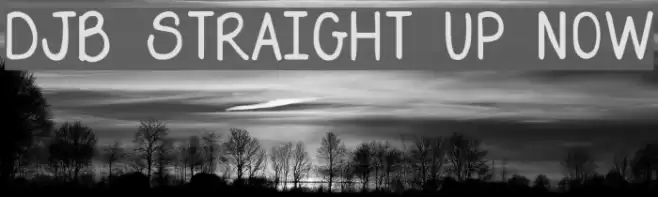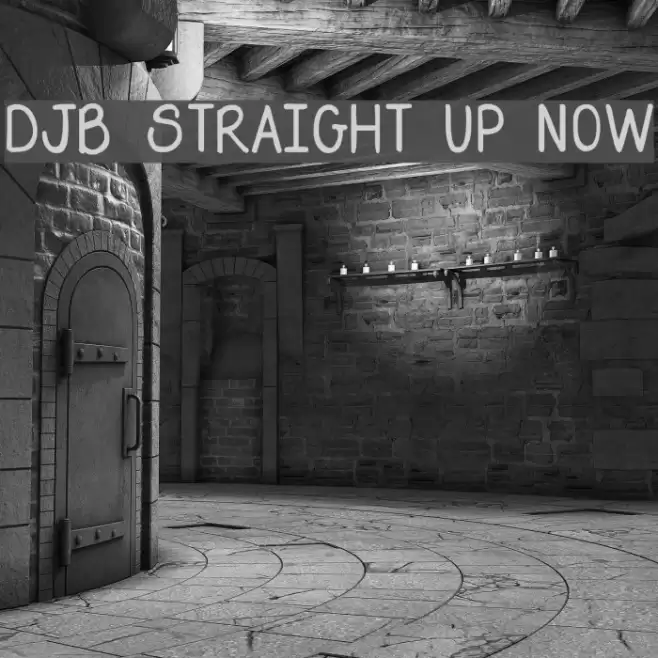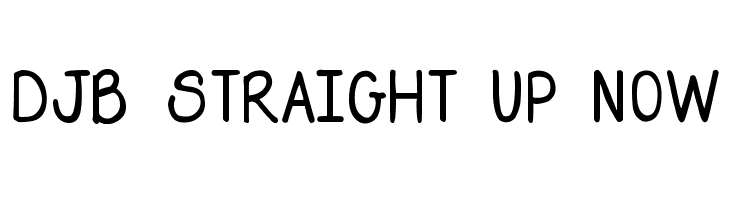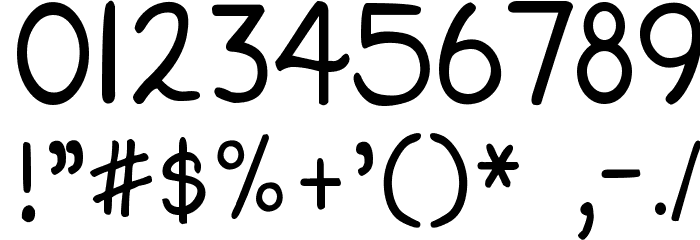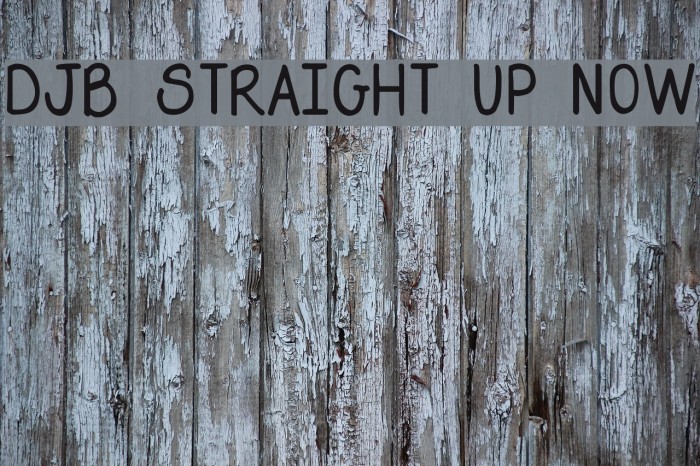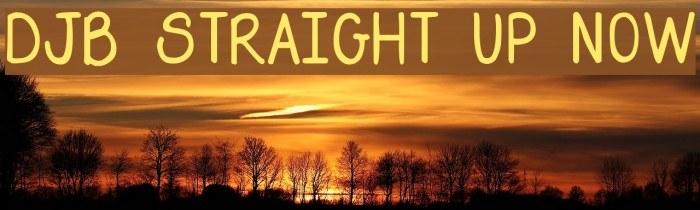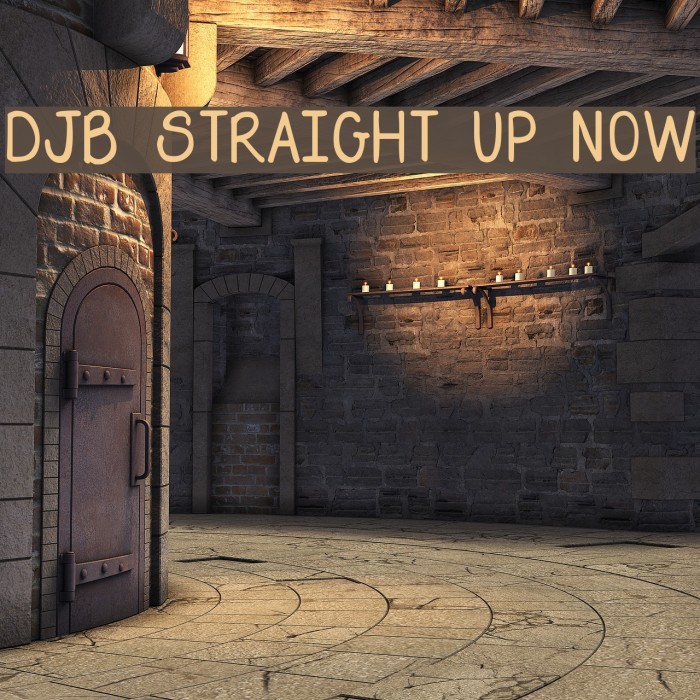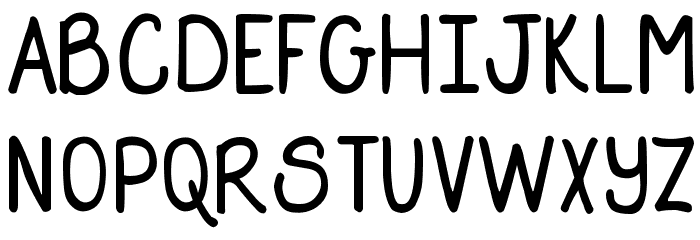
DJB Straight Up Now Font
DJB Straight Up Now Description
This font features a playful and casual handwritten style, characterized by its rounded and smooth letterforms. The uppercase and lowercase letters maintain a consistent flow, with slightly varying stroke widths that add a touch of whimsy. The numerals and special characters are crafted with the same playful aesthetic, making them easily readable while retaining the font's unique charm. The overall appearance is friendly and approachable, suitable for projects that require a personal touch.
A playful handwritten font with rounded, smooth letterforms from Uncategorized fonts.
- Proposed Projects: Ideal for greeting cards, children's books, casual invitations, and playful branding.
- Overall Style: Casual
- Use Case: Headlines, Informal text, Branding